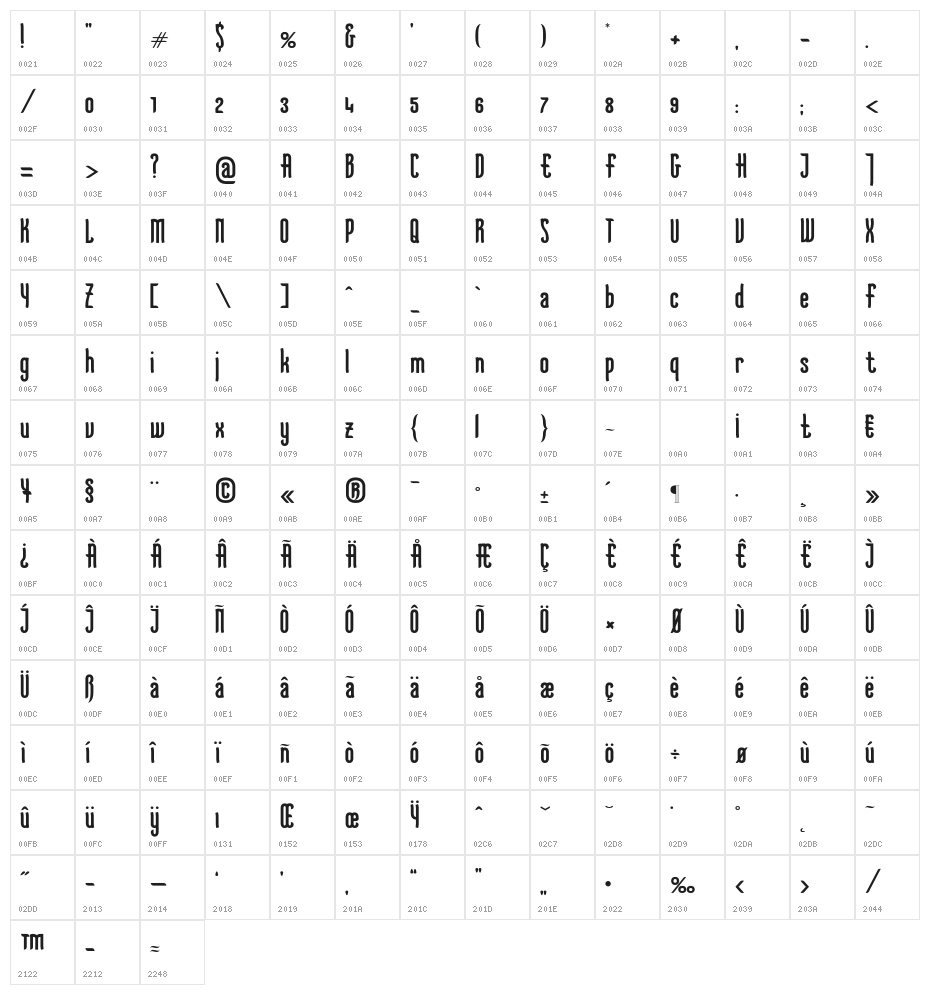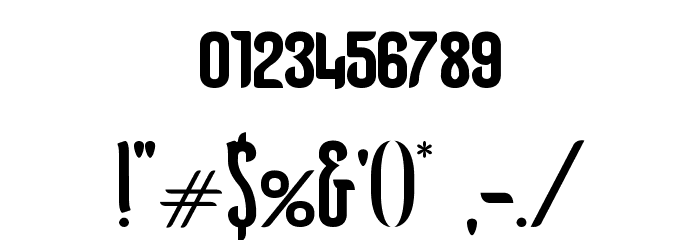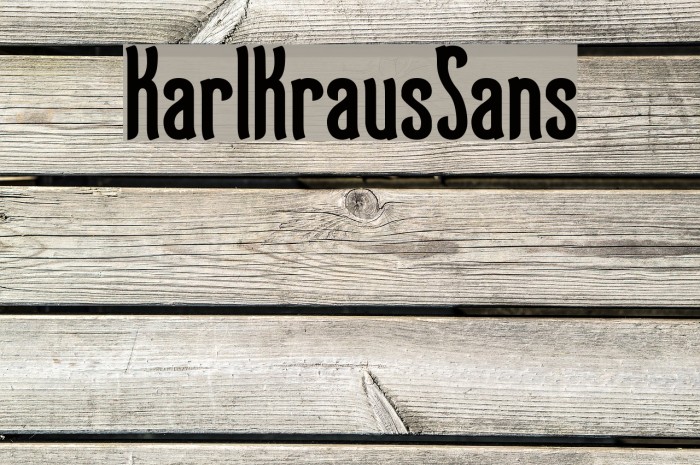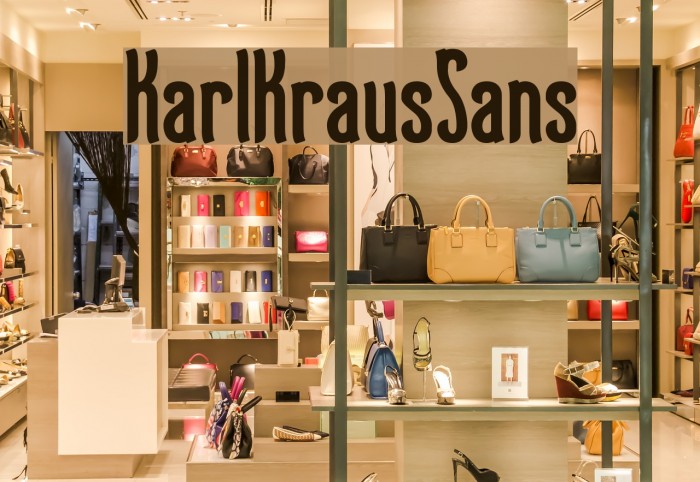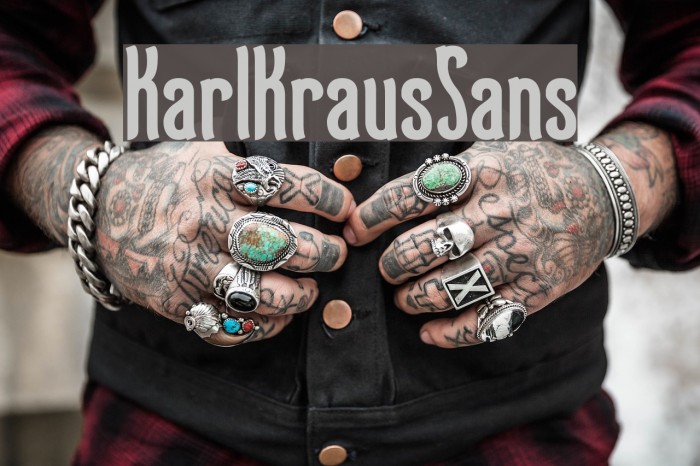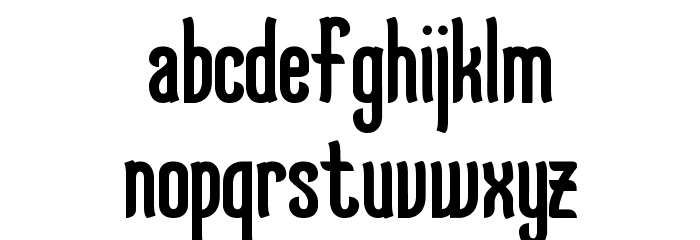
KarlKrausSans Font
KarlKrausSans Description
This font features a unique and bold design with a strong presence. The characters are slightly condensed, giving it a compact appearance while maintaining readability. The strokes are consistent in width, providing a uniform look across all characters. The uppercase letters have a distinctive style with sharp edges and a slightly vintage feel. The lowercase letters complement the uppercase with a similar aesthetic, offering a cohesive look. The numerals are clear and easy to read, matching the overall style of the alphabet. Special characters are well-designed, fitting seamlessly with the rest of the font. This font is ideal for projects that require a bold and impactful typeface.
| Categories | Retro |
| Width | Condensed |
| Overall Style | Vintage |
| Proposed Projects | Ideal for posters, branding, headlines, and any project needing a strong, vintage-inspired typeface. |